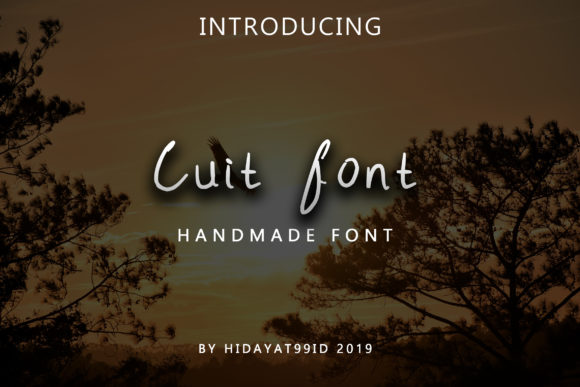
Cuit Font
Introducing Cuit Font, a beautiful handwritten font that adds a touch of casual sophistication to any design project. This script font is perfect for creating elegant logos, stunning wedding invitations, heartfelt greeting cards, or eye-catching social media graphics.
With its enchanting curves and effortless flow, Cuit Font creates a charming and inviting aesthetic that captivates audiences. Each letter dances across the page, expressing a sense of warmth and personality. Whether you're a seasoned designer or just starting, Cuit Font is the ideal choice for adding a personal touch to your creative projects.
Express your unique style with Cuit Font, a versatile font that adapts seamlessly to a range of design concepts. From whimsical illustrations and playful branding to chic fashion designs and heartfelt personal messages, Cuit Font adds a captivating touch that leaves a lasting impression. Let your creativity flourish as you explore the endless possibilities of this versatile font.
Embark on a creative journey with Cuit Font, a font that captivates, enchants, and inspires. Transform your designs into works of art, leaving your audience spellbound. Experience the magic of Cuit Font today and unlock a world of creative possibilities.